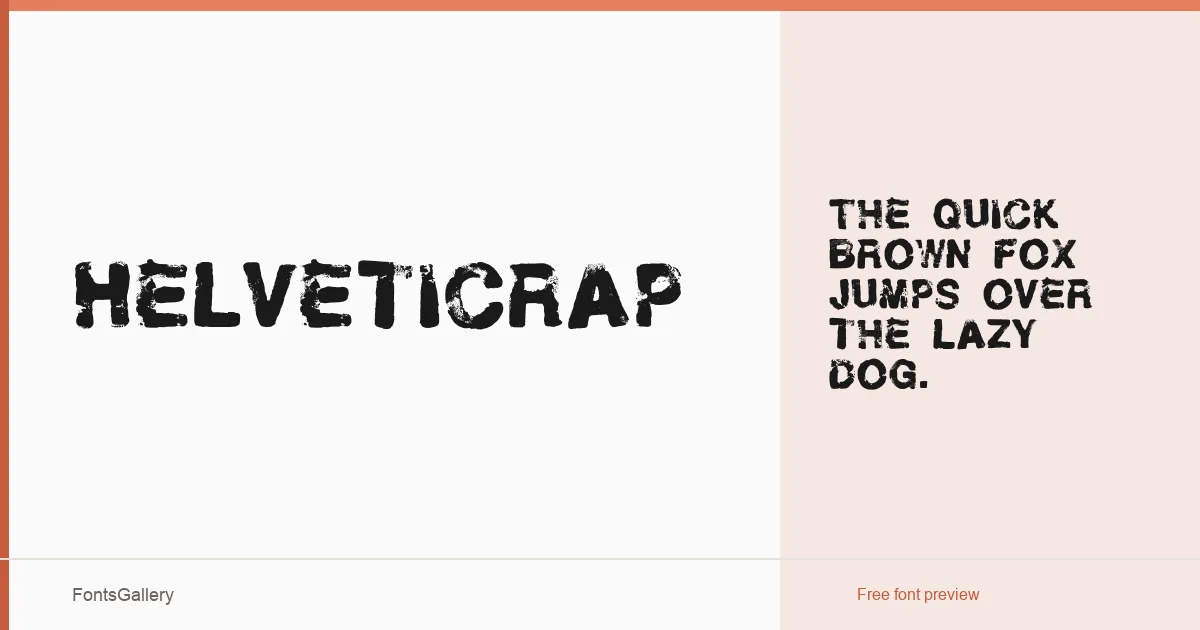
About Helveticrap Font
Helveticrap is a display typeface designed by Michael Tension and published through Tension Type. Built for impact, it channels a raw, expressive energy that sets it apart from conventional display fonts. Its bold personality makes it a striking choice for creatives seeking something with real attitude and character.
Helveticrap embraces a vintage, grunge-infused aesthetic with bold, rustic letterforms that feel deliberately rough and lived-in. The characters carry a weathered, distressed quality that evokes an authentically worn look, making each glyph feel full of texture and history. This combination of boldness and grungy rustic charm gives the typeface a commanding visual presence on the page.
Helveticrap is ideally suited for posters, advertisements, branding projects, T-shirt designs, and signage where a bold, eye-catching statement is needed. Its rugged display qualities make it especially effective in contexts that call for a vintage or underground aesthetic. For a compelling typographic combination, consider pairing Helveticrap with Helvetica or Aresink to balance its grungy character with complementary styles.